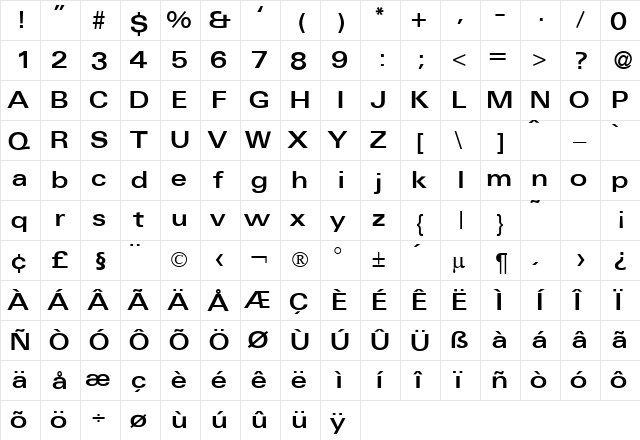
UniversalExBDB Normal
Design Context for UniversalExBDB Typeface
UniversalExBDB is a composed and adaptable typeface that performs quietly and consistently across a wide range of design contexts. The heavy weight commands attention and anchors typographic hierarchies.
Pro Tip: Use UniversalExBDB in both headline and body roles to test its range before committing to a single application.